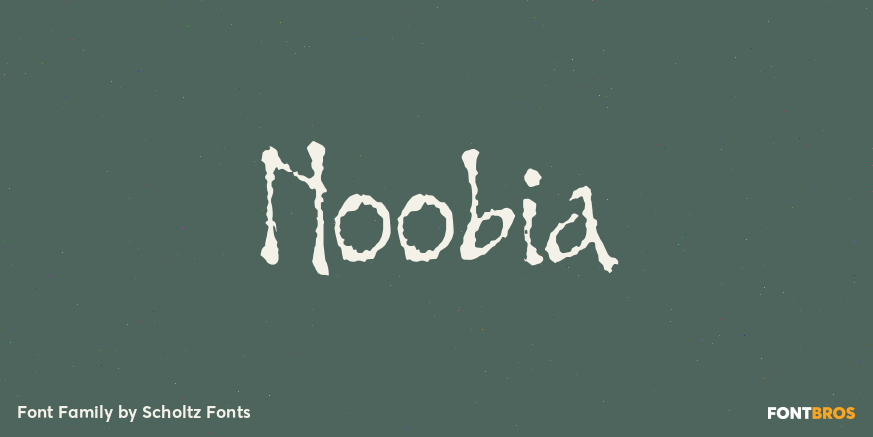
Noobia
Noobia is a casual, energetic handwritten font, with plenty of movement. Its moving baseline creates a funky, busy, dramatic impression. With its informal, immediate style, Noobia is like a swift swash of text handwritten with a slightly overfilled ink…